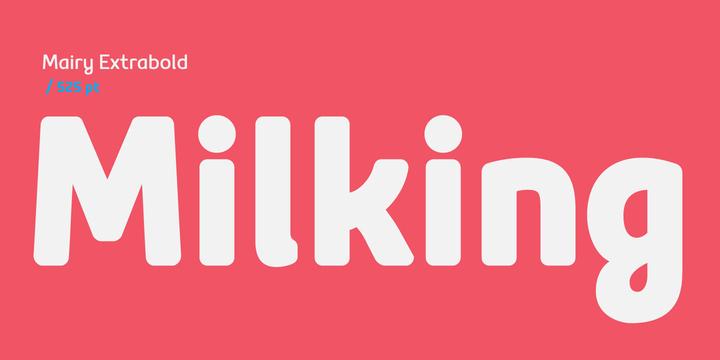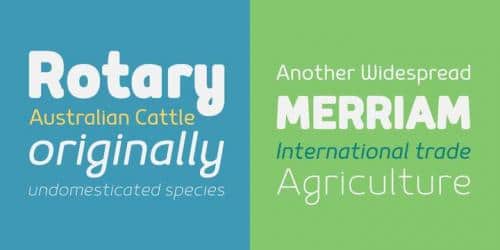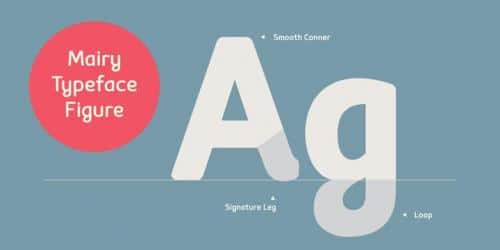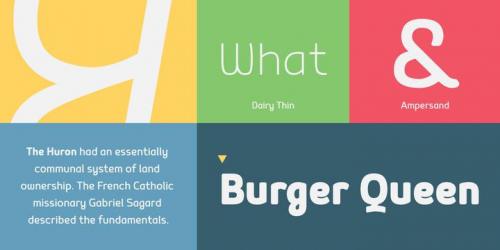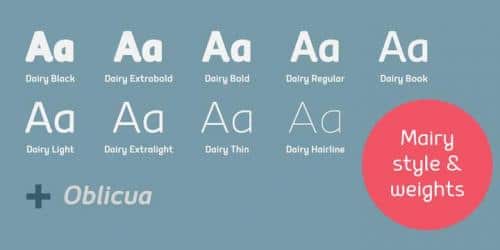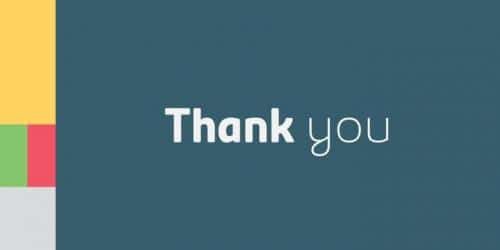
Mairy font family is a modern sans serif font family. Featuring 9 separate weights each followed by own true italics. Mairy is positioned somewhere between rounded sans with humanist touch. In fact the humanist presence in Mairy is a little bit more than the usual doze adding more calligraphic elements mostly noticeable in italic weights but also very important in regulars.
This symbiosis of Grotesk geometry with handwriting is well balanced regarding contrast and legibility so that at the end we have a highly usable font family. Light weights are very tender and elegant while the old and blacks are soft, friendly and full of vitality. The mid weights are just perfect with their medium contrast and excellent legibility.
Mairy is very fresh font family and is surprisingly flexible when it comes to screen or print use – it is optimized for both even if the conditions are poor. Use it with OpenType compatible software and explore its true potential by accessing additional set of ligatures, alternates and multilingual support.